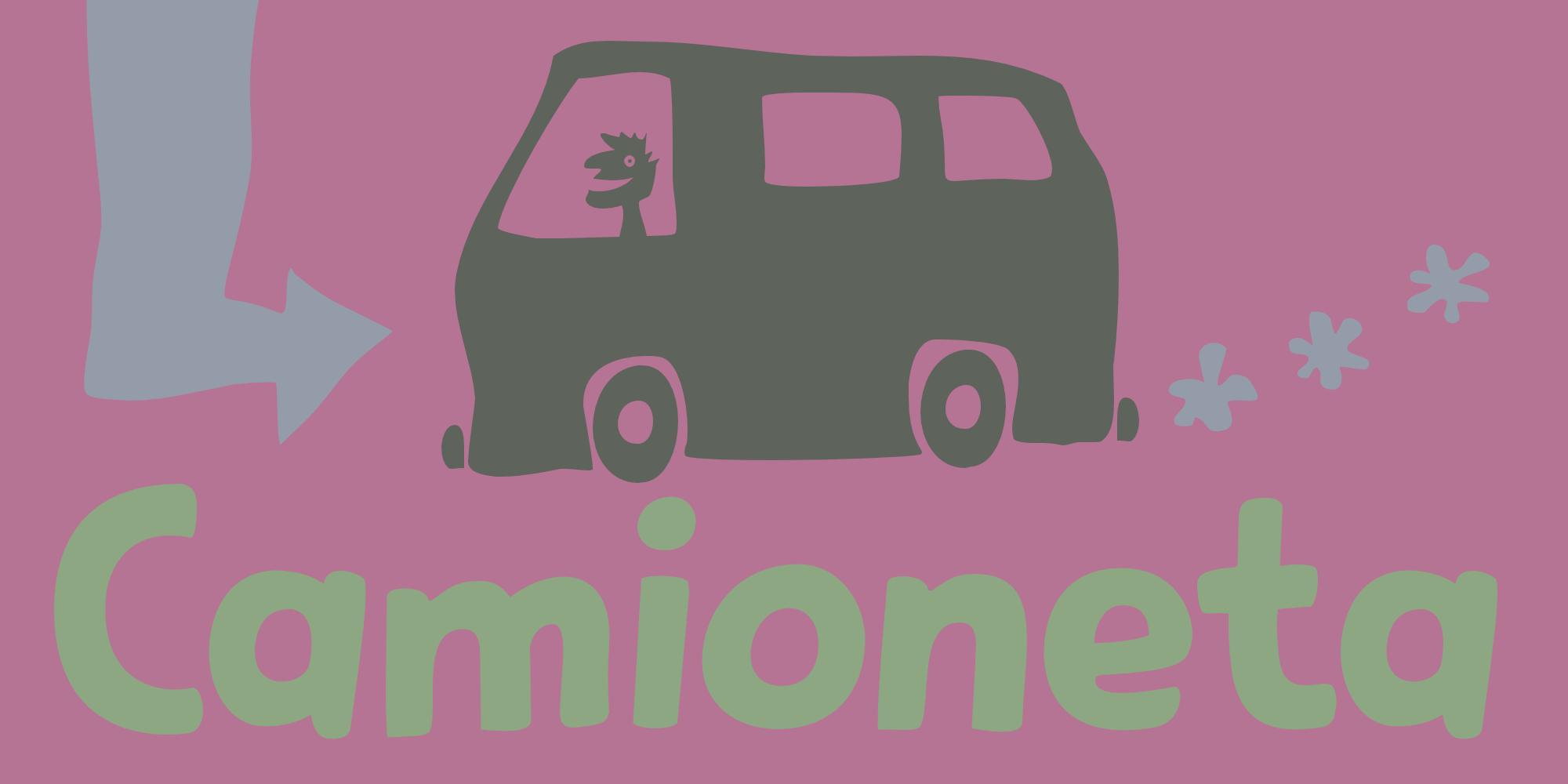
Camioneta Font is ideal for automotive dealerships, truck rental companies, transportation services, logistics firms, construction businesses, heavy-duty equipment, roadside diners, and industrial applications that require sturdy typography with vehicular strength and dependable character that communicates reliable service and rugged durability.
What makes Camioneta Font exciting is its exceptional ability to capture the essence of hardworking vehicles and industrial reliability through robust letterforms that embody strength and endurance. This powerful typeface features bold characteristics inspired by truck typography and automotive design, making it perfect for brands serving industries where dependability and toughness are essential qualities.
The Camioneta Font family includes regular, bold, and black weights, complemented by condensed variations for space-efficient signage applications. Each style maintains the font's characteristic vehicular strength while providing designers with comprehensive tools for creating impactful layouts and industrial brand communications that inspire confidence in demanding work environments.
Transportation professionals consistently choose Camioneta Font Free Download for projects requiring automotive authenticity and industrial credibility. This versatile typeface effectively communicates reliability and durability while maintaining excellent readability in harsh conditions, ensuring brand messages resonate with audiences seeking dependable transportation and heavy-duty service solutions.
The font's automotive heritage and industrial character make it particularly suitable for transportation and construction sectors. Camioneta Font delivers exceptional rugged impact while ensuring optimal legibility across challenging environments, offering designers a dependable solution for creating memorable brand identities that communicate strength, reliability, and vehicular excellence across transportation and industrial marketing applications.